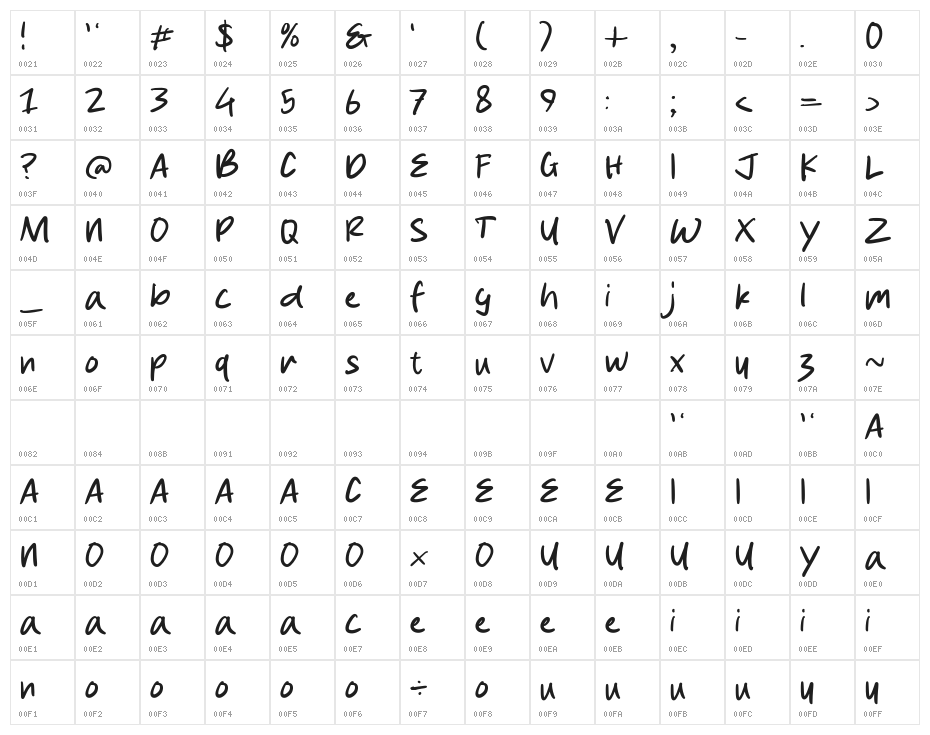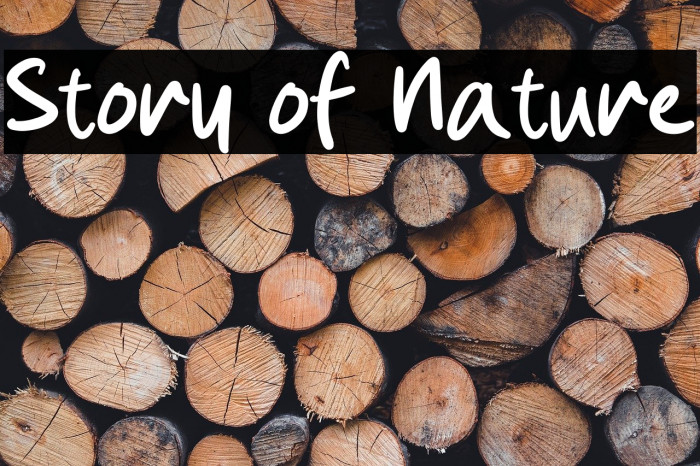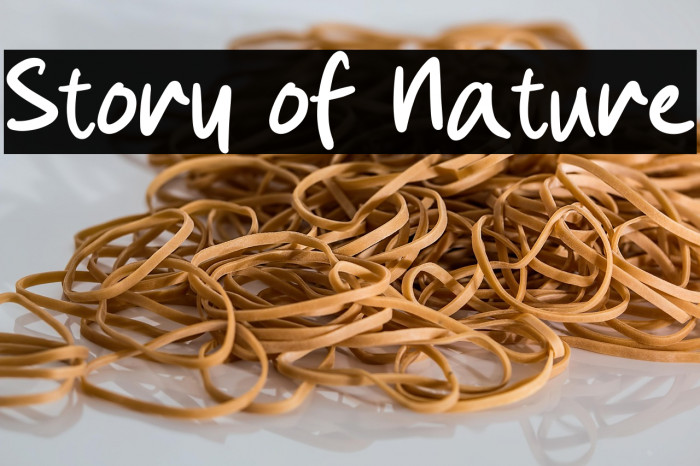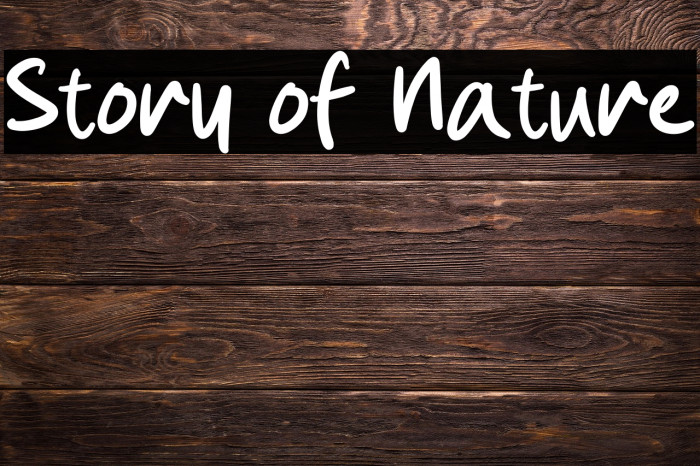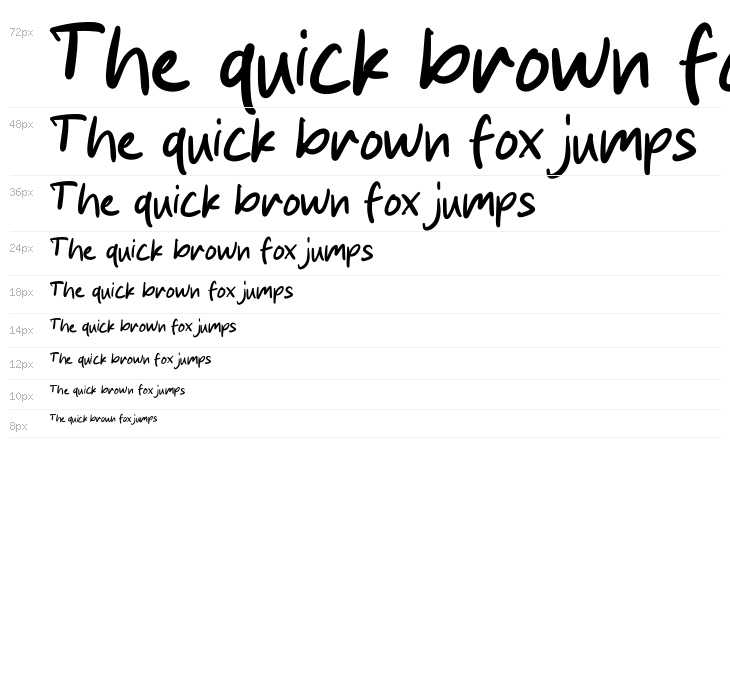
Story of Nature Font
Story of Nature Description
This font exudes a casual and handwritten style, characterized by its fluid and natural strokes that mimic the look of a marker or brush pen. The letters are slightly slanted, adding a dynamic and informal feel. The uppercase and lowercase letters maintain a consistent flow, while the numbers and special characters integrate seamlessly with the overall style. The font's playful and approachable nature makes it ideal for projects that require a personal touch or a creative flair.
| Proposed Projects | Ideal for greeting cards, personal branding, creative posters, and social media graphics. |